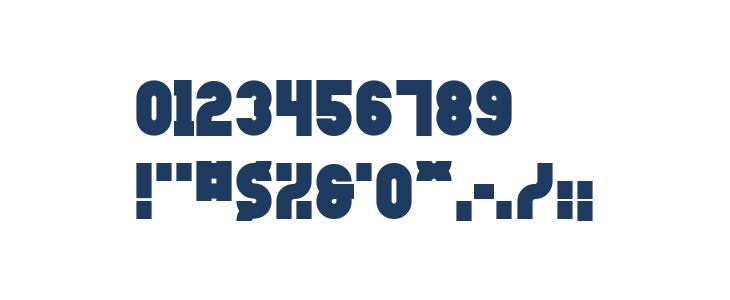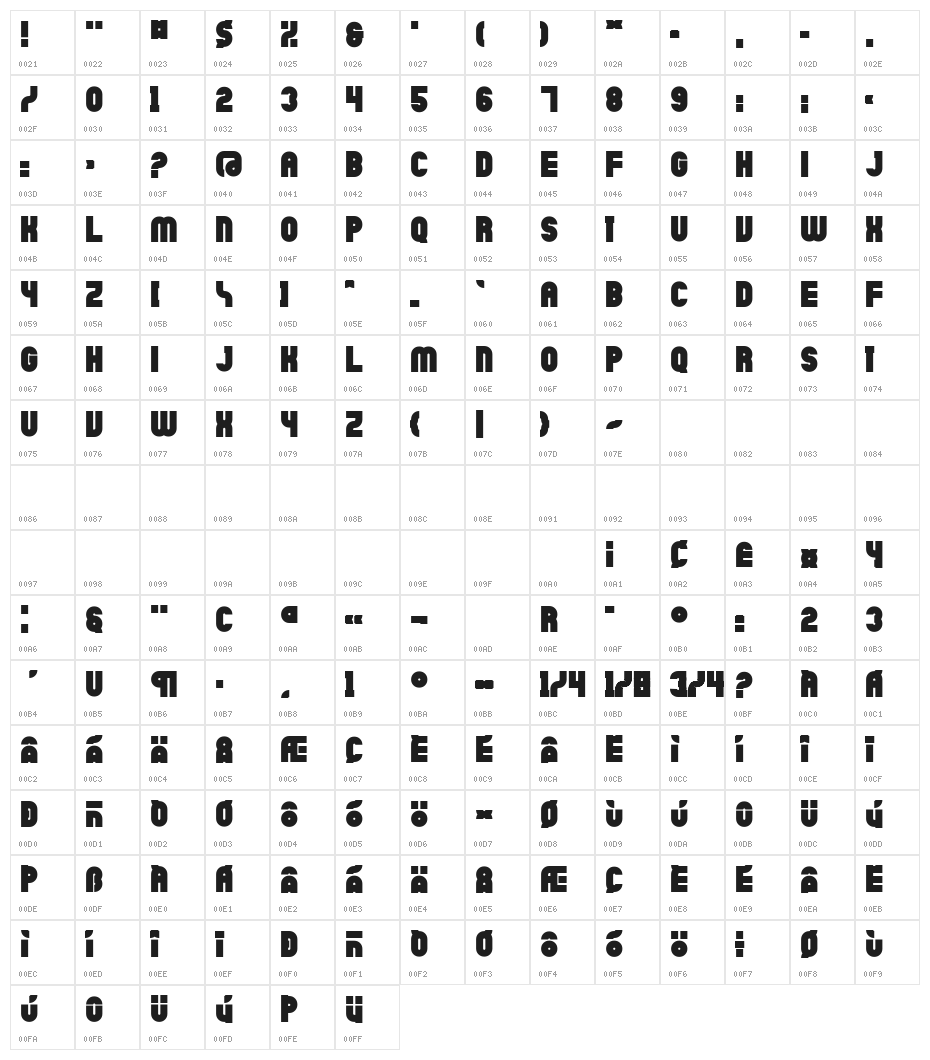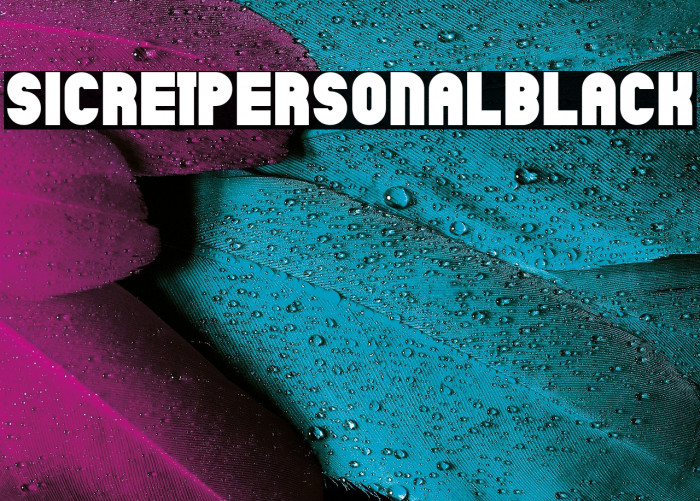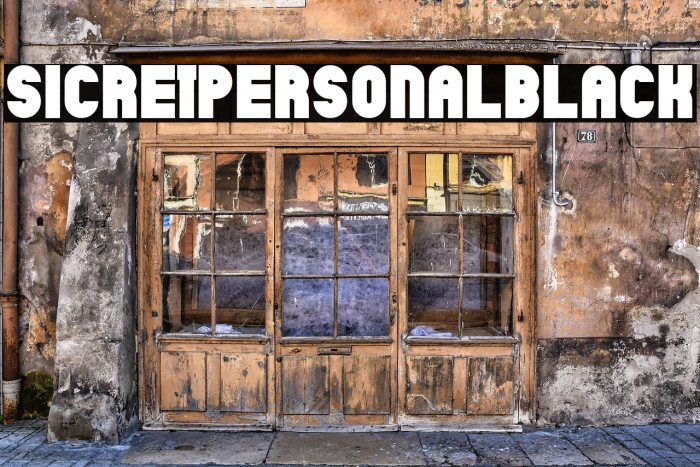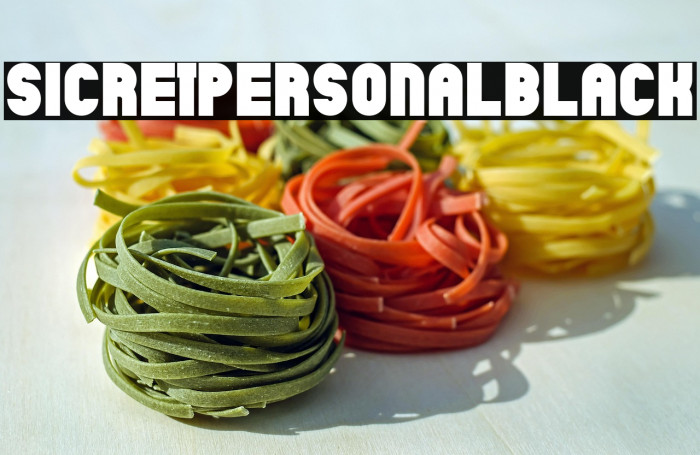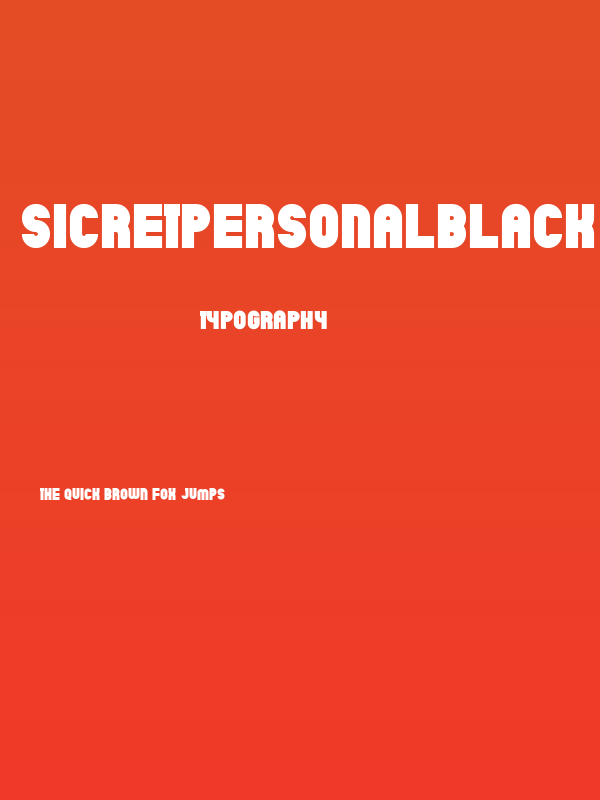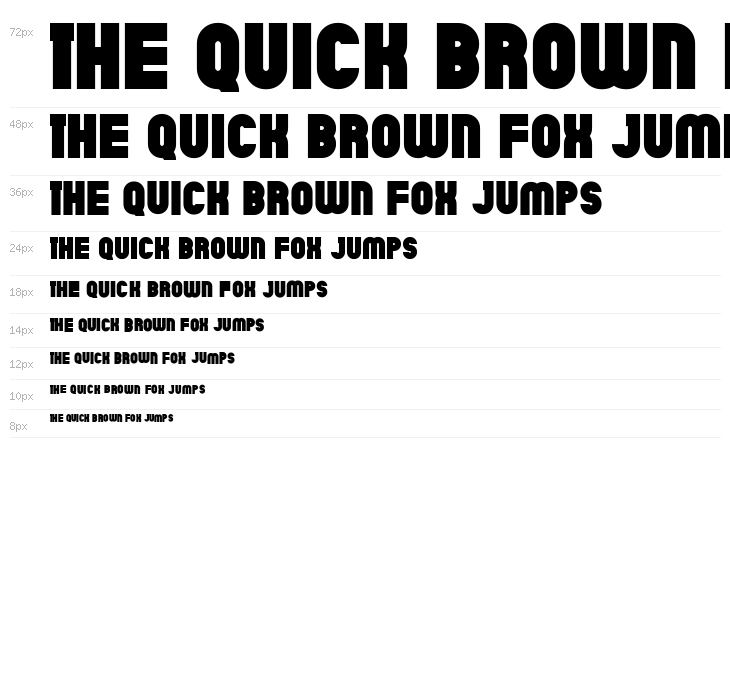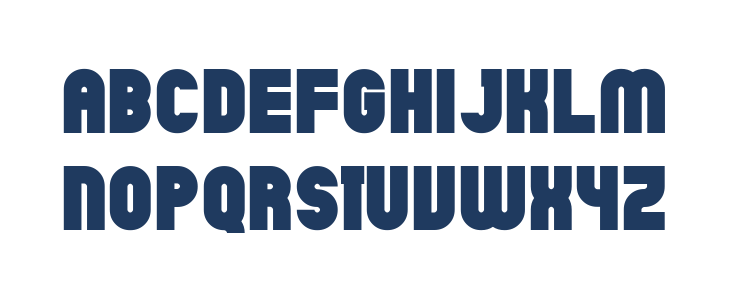
SicretPERSONALBlack Font
SicretPERSONALBlack Description
This font features bold, geometric letterforms with a strong presence. The characters are uniformly thick, creating a sense of solidity and impact. The design is modern and clean, with a slight retro vibe due to its blocky, almost modular appearance. The uppercase and lowercase letters maintain a consistent style, enhancing readability while adding a touch of uniqueness. The numbers and special characters follow the same bold, structured design, making them stand out effectively. This font is ideal for projects that require a strong visual statement.
| Proposed Projects | Ideal for branding, posters, headlines, and any design requiring a strong visual impact. |